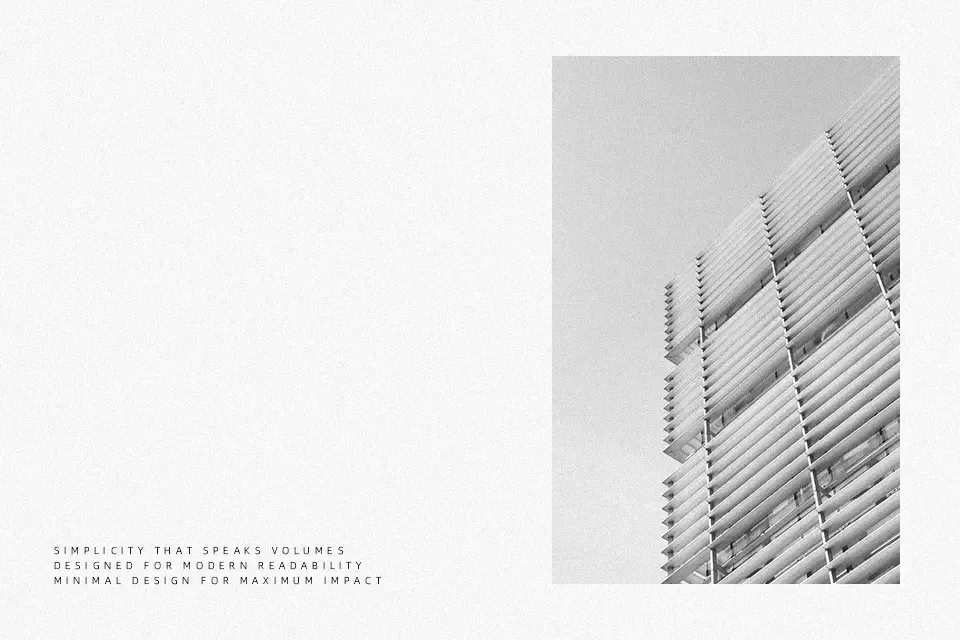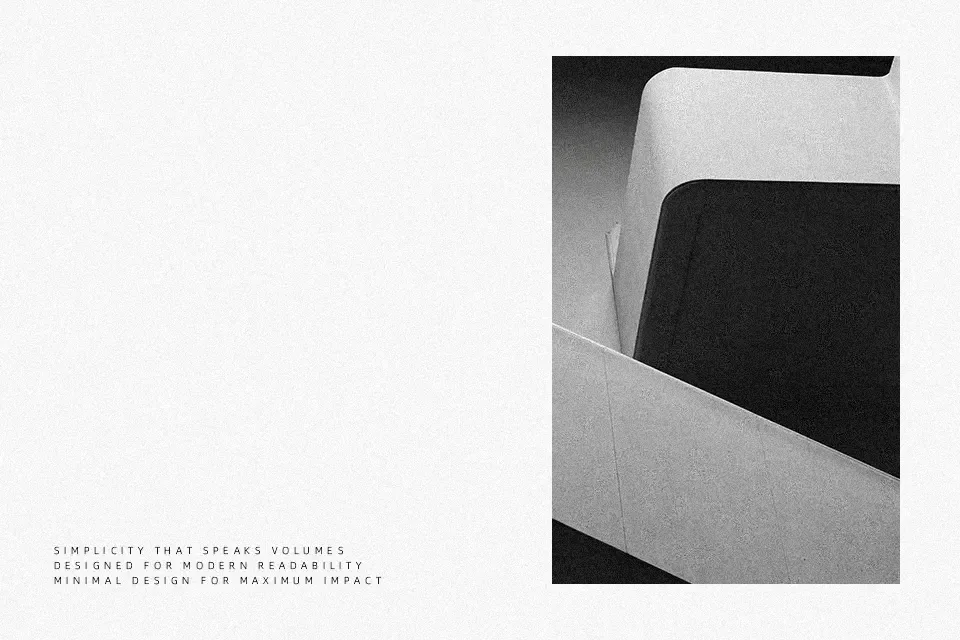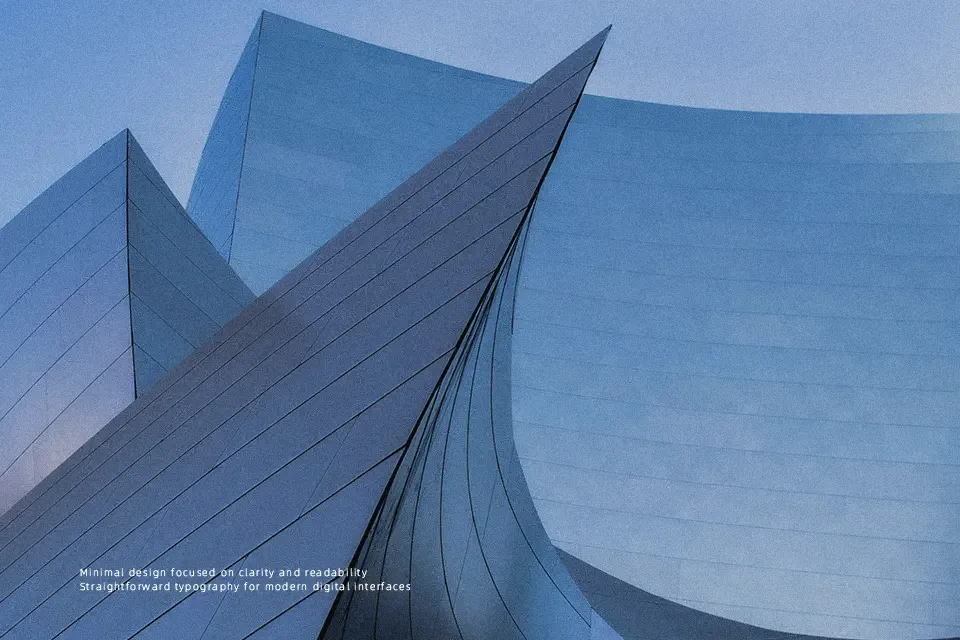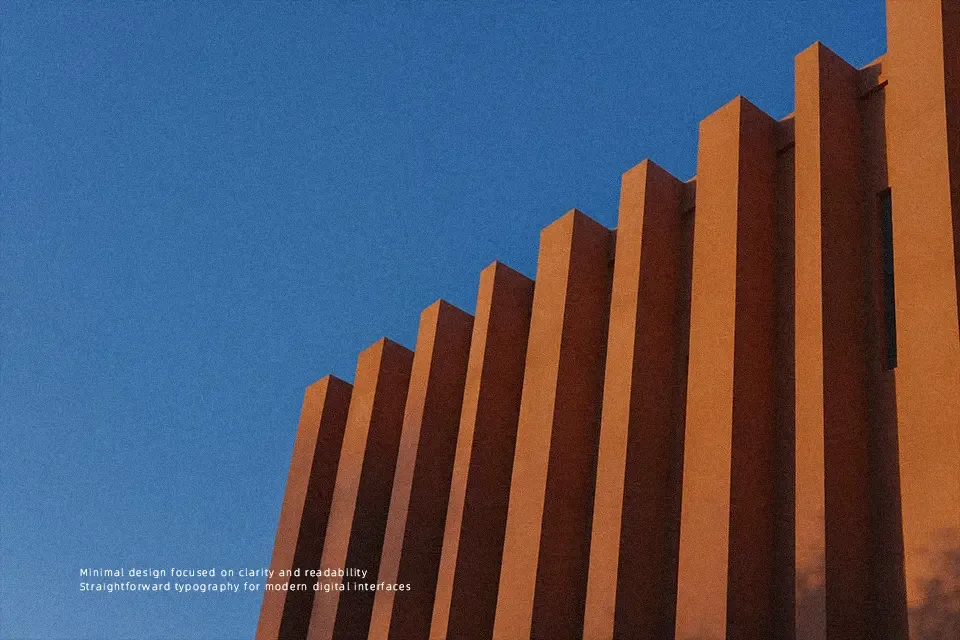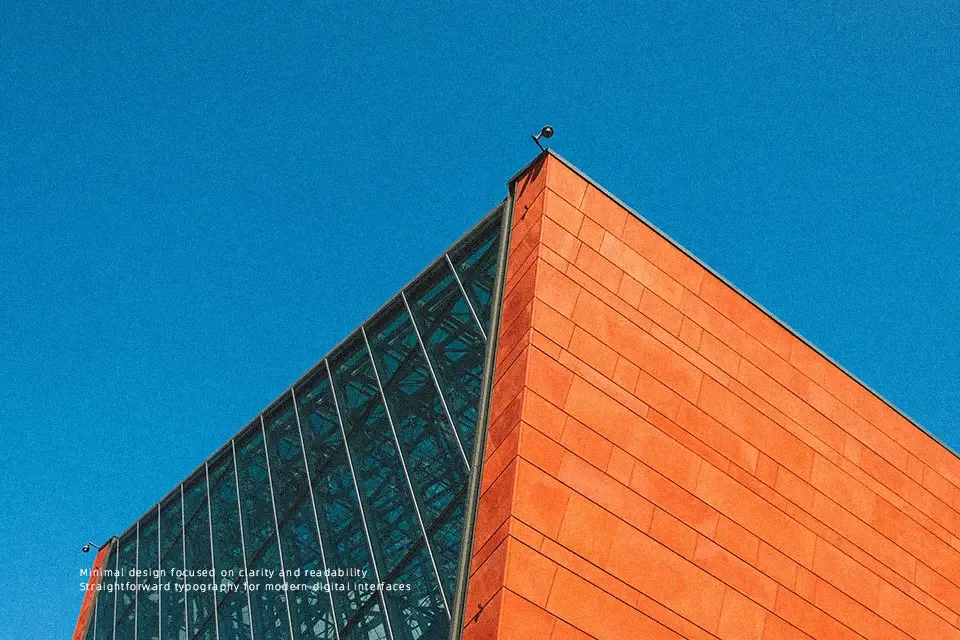
Khmer Font
Khmer is a single-style Khmer-script typeface with simple, low-contrast strokes and relatively open counters, which helps small text stay legible on modern screens. Its structure feels neutral and functional rather than decorative, so it sits quietly in interfaces or supporting text instead of drawing attention to itself. The spacing is tuned more for compact menus, captions, and short phrases than for dense, book-length reading, where the rhythm can start to feel monotonous. When you need a dependable Khmer font for UI design, prototypes, or basic web content, it does the job without drama, but you might move to a more refined family for editorial layouts or brand-heavy work.
app interface labels
UI menus and captions
simple web content in Khmer
long-form editorial reading
expressive branding systems
heavily stylized display titles
Perfect for body text, headline, and ui design, with a clean and sans serif style.